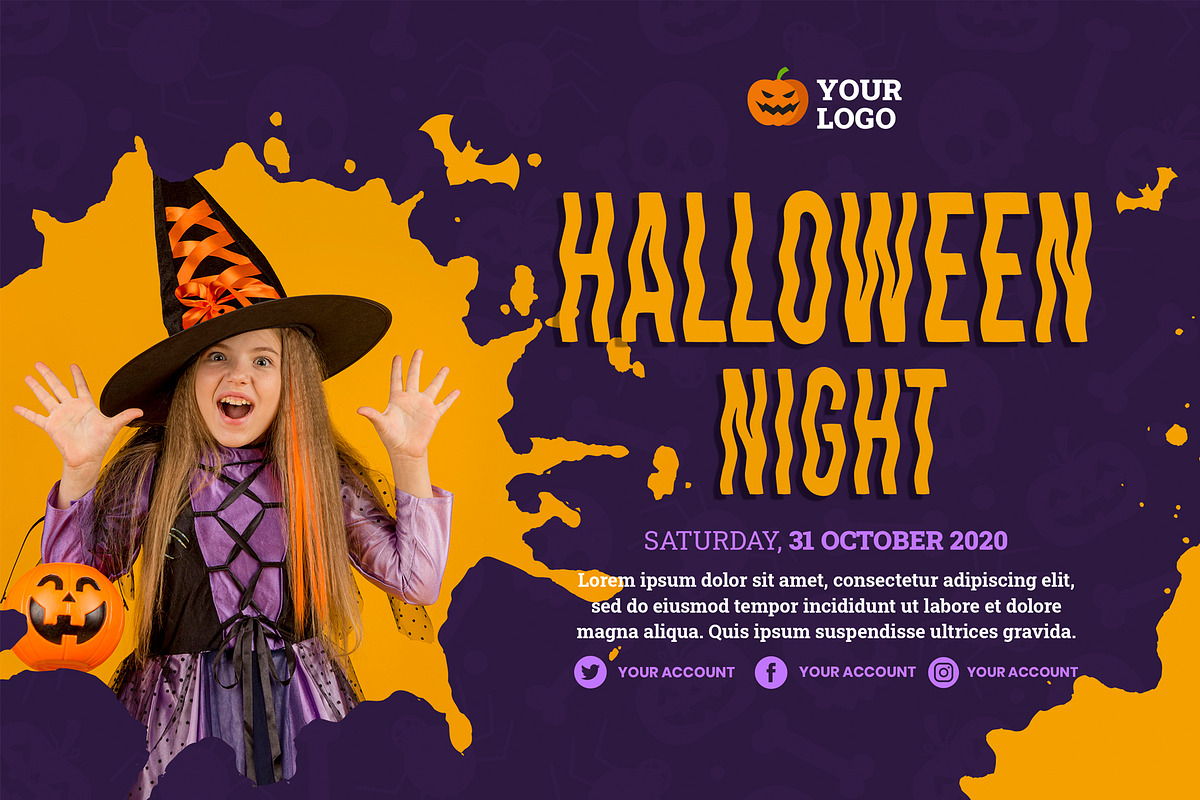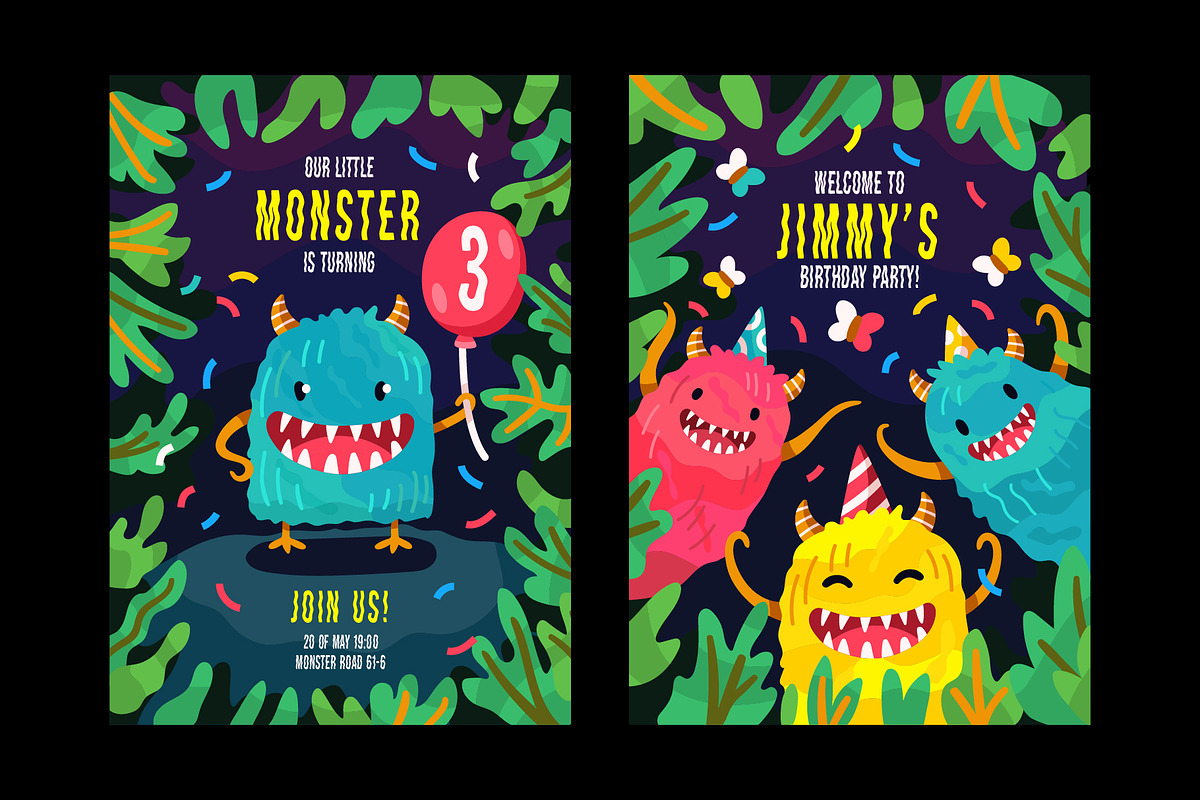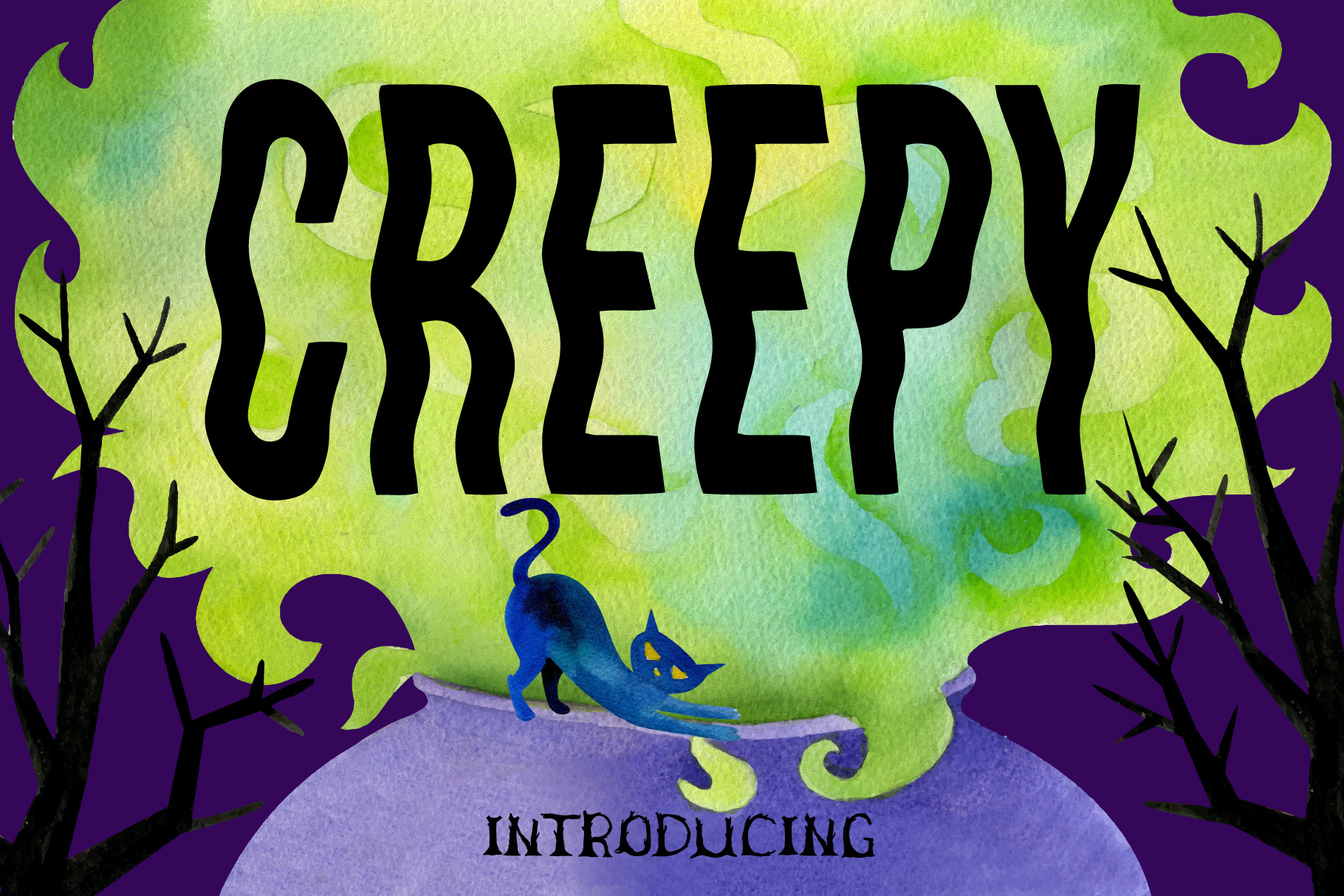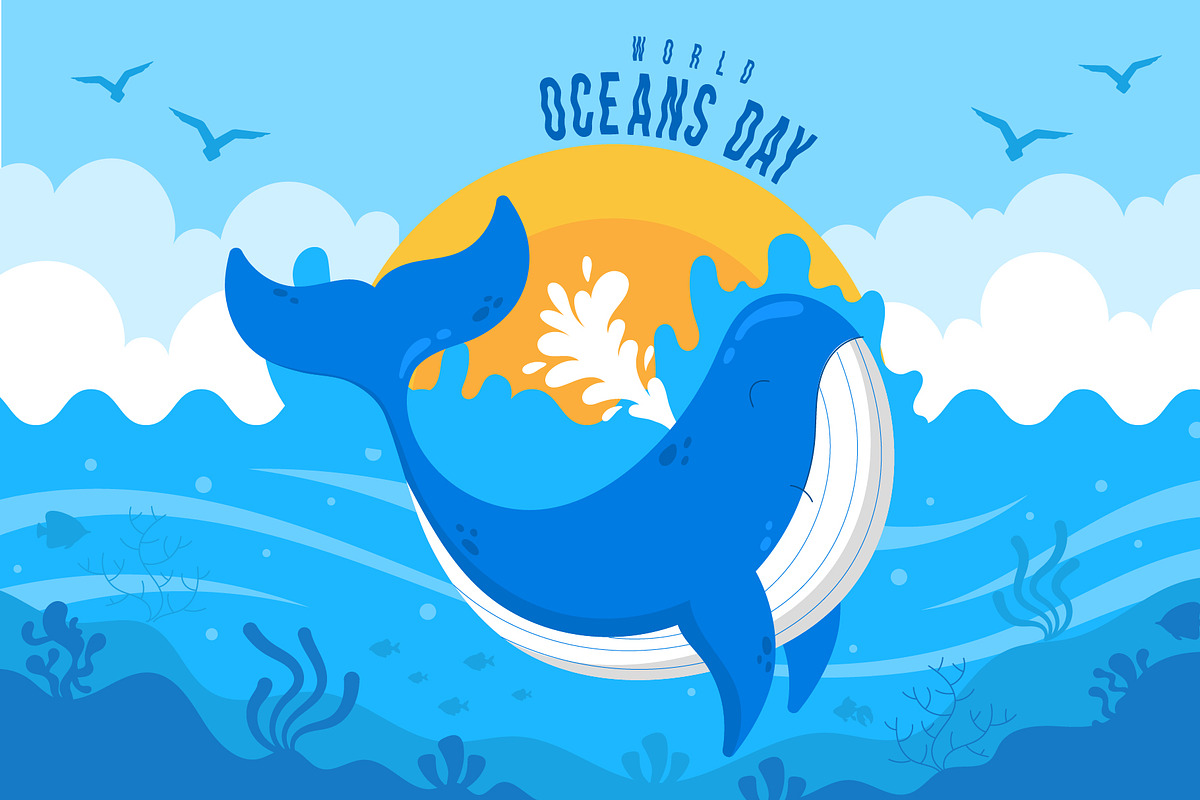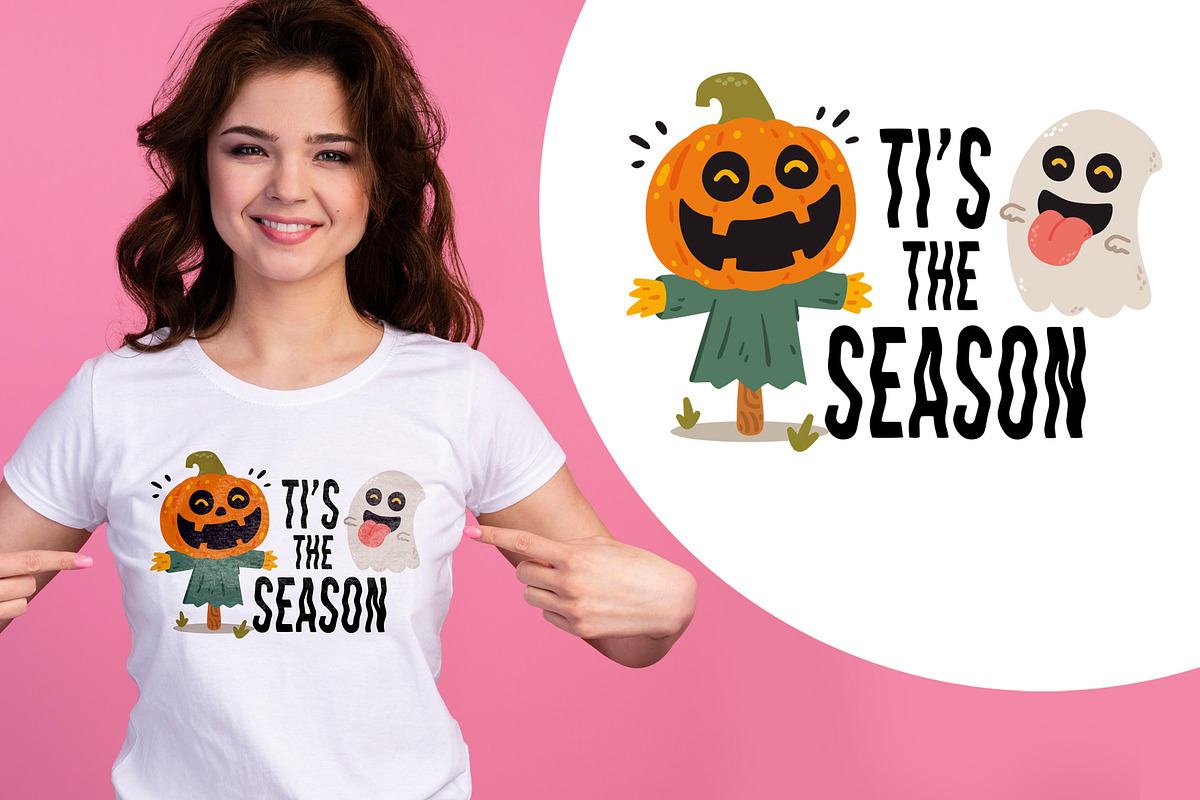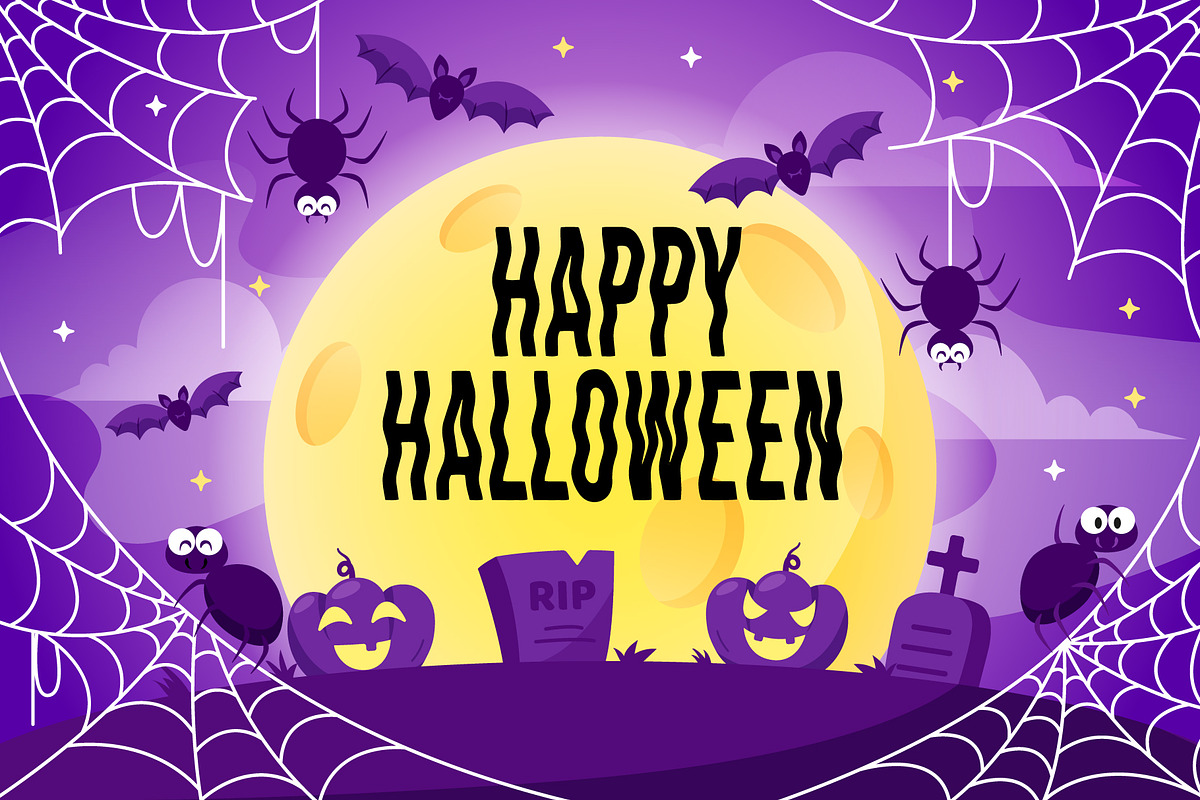
Creepy Fonts
Creepy Fonts is a meticulously designed Display font. It can be used in Halloween, horror or cute work, it's incredibly perfect. Add it to your creative ideas and notice how it makes them stand out!